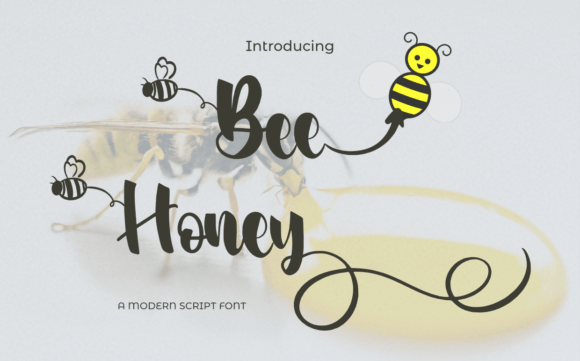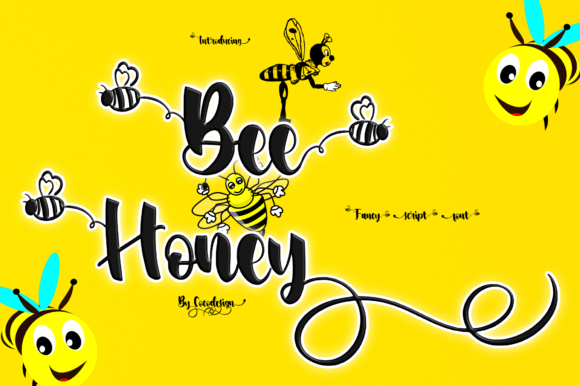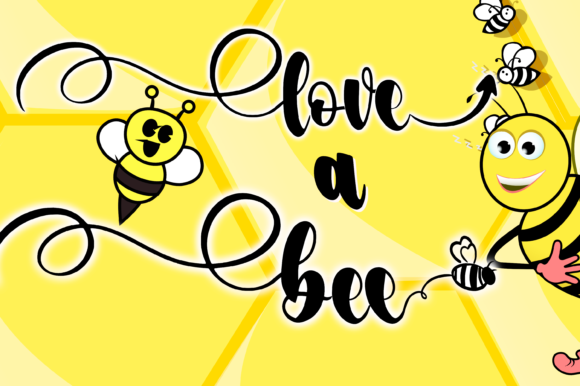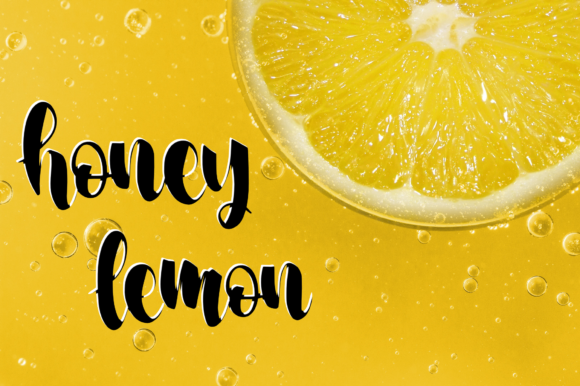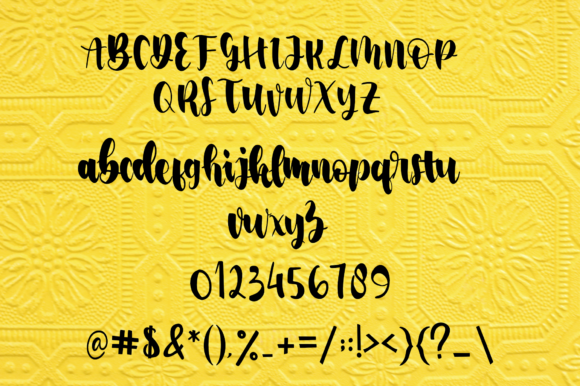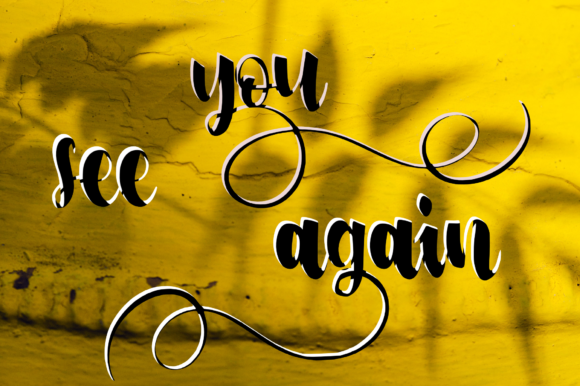
Bee Honey Font
About Bee Honey Font
“Bee Honey” is a superb handwritten font crafted to make your work stand out with its elegant and curvy lines. This versatile font is an excellent choice for a variety of applications, including product packaging, branding projects, magazine covers, social media graphics, wedding materials, or simply for expressing words above different backgrounds.
The elegance of “Bee Honey” shines through its handwritten style, bringing a touch of personal and artistic flair to your designs. The curvy lines add a dynamic and graceful appearance, making it well-suited for projects that demand a combination of sophistication and charm.
Imagine “Bee Honey” adorning product packaging, where its superb handwritten script enhances the overall visual appeal. The font’s elegant and curvy lines can transform ordinary packaging into a stylish and eye-catching representation of your brand, especially if you’re in the business of honey or related products.
For branding projects, “Bee Honey” becomes a distinctive choice, injecting a unique personality into your visual identity. Its versatility allows it to seamlessly adapt to various design elements, ensuring a cohesive and memorable brand presentation.
On social media platforms and magazine covers, “Bee Honey” brings a creative and warm touch. The curvy lines create a sense of flow, making it visually engaging and suitable for a wide range of content, from lifestyle to fashion and beyond.
Whether you’re working on a wedding invitation or aiming to express words creatively above different backgrounds, “Bee Honey” offers a superb solution with its elegant and curvy lines. Embrace the charm of this handwritten font to elevate your designs and leave a lasting impression on your audience.